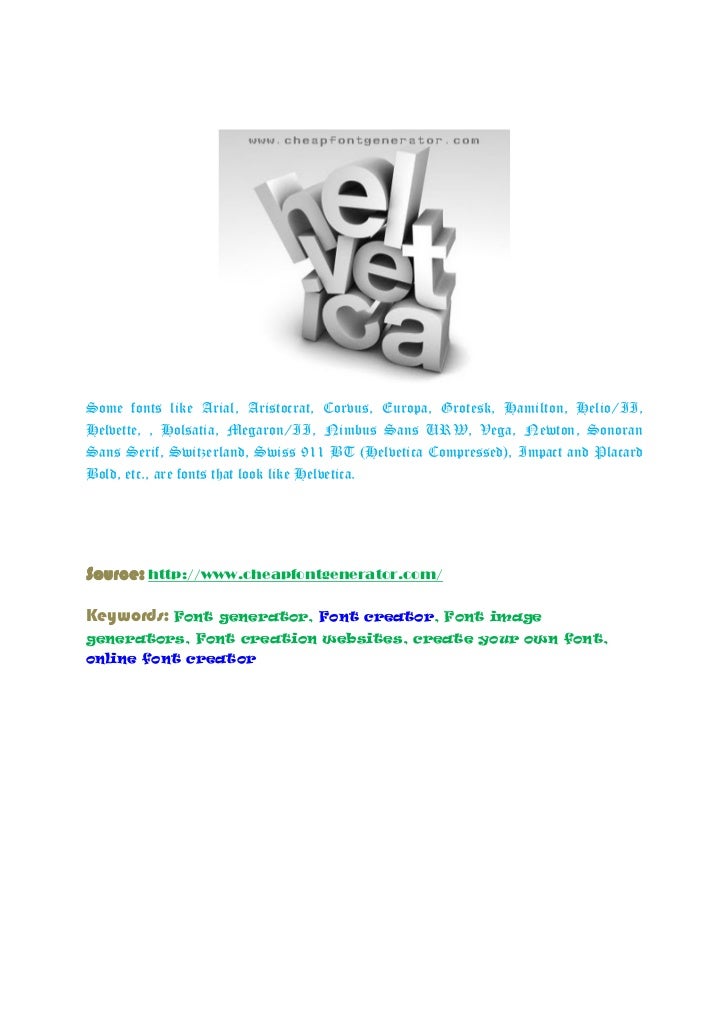
Helvetica Outline Font Generator
New colors and the possibility to display only the outlines of the font. Helvetica 75 bold outline is the perfect font for all your fun designs.
Helvetica 75 outline bold is the perfect font for all your fun designs.
Helvetica outline font generator. Helveticaneue boldoutline macromedia fontographer 4.1.5 9/3/02. Though these fonts differ from each other, they have a particular typeface: There may be several lines, or the inside of the letter may be completely hollow.
Pixelated font generator about fonts pool text generator is an amazing tool, that help to generate images of your own choice fonts. The font family is helvetica75outline.the subfamily is bold. This typeface was initially released as neue haas grotesk, and was designed in 1957 by max miedinger for the haas’sche schriftgiesserei (haas type foundry) in switzerland.
Helvetica lt 75 bold outline is the perfect font for all your fun designs. With the discord text generator, you can easily create fonts such as double struck, medieval, gothic, old english, cursive, and many more. Boldoutline), 211 characters in total.
Font meme is a fonts & typography resource. This family contains 49 fonts in styles such as 55 roman, 75 bold, 45 light, 65 medium, 25 ultra light, 67 medium condensed, 85 heavy, 97 black condensed, 35 thin, 57 condensed, 107 extra black condensed, 75 bold outline, 95 black, 96 black italic, 77 bold condensed, 93 black. Enter your ransom note text.
The weights of uni sans range from thin to heavy. Font meme is a fonts & typography resource. About the font helvetica 75 outline bold.
We have many similar helvetica alternatives that you can download for. Outline fonts have letters with a separate outer line. Our font changer allows you to convert text to cool fonts for instagram, facebook, discrod, tumblr, telegram, twitter or any social media account bios.